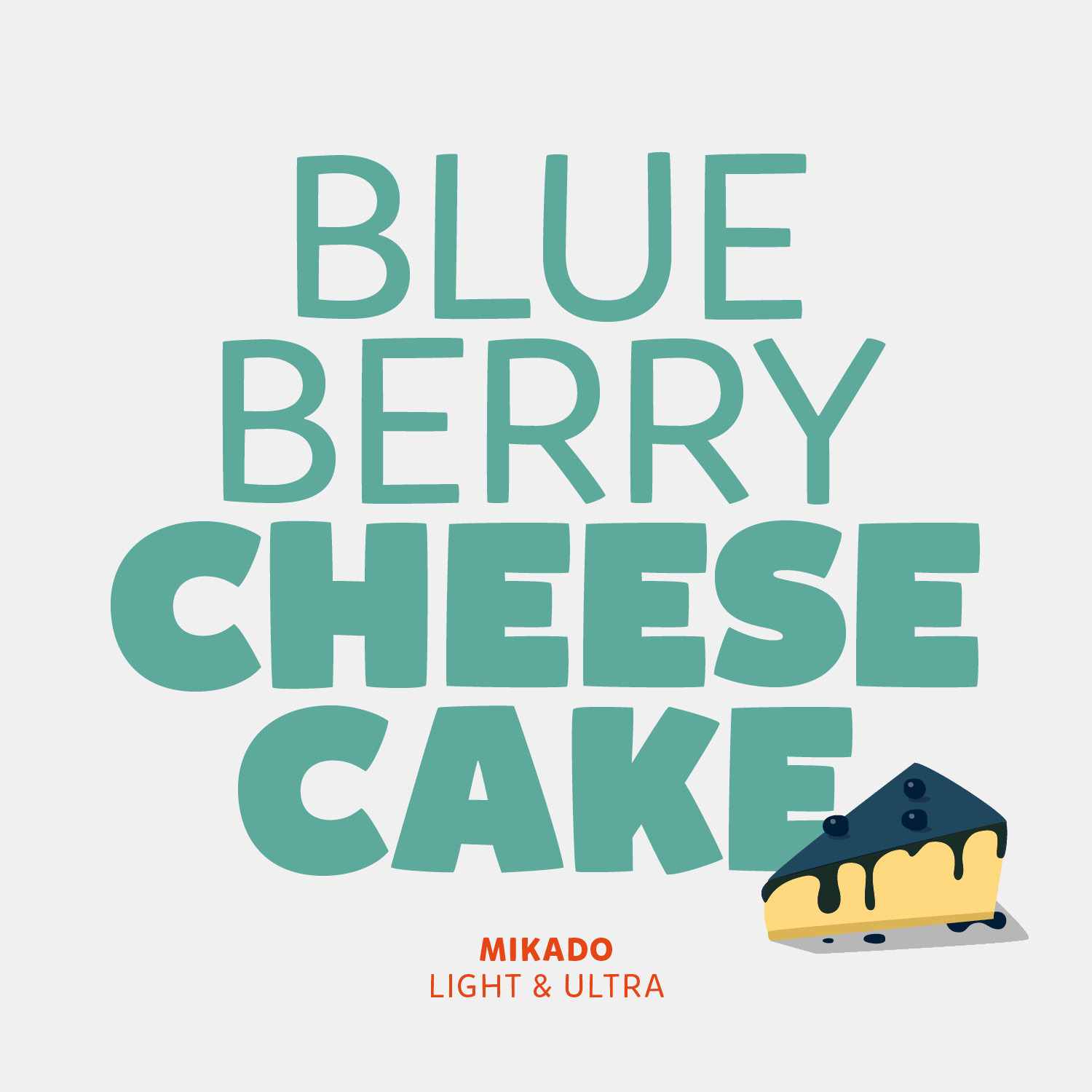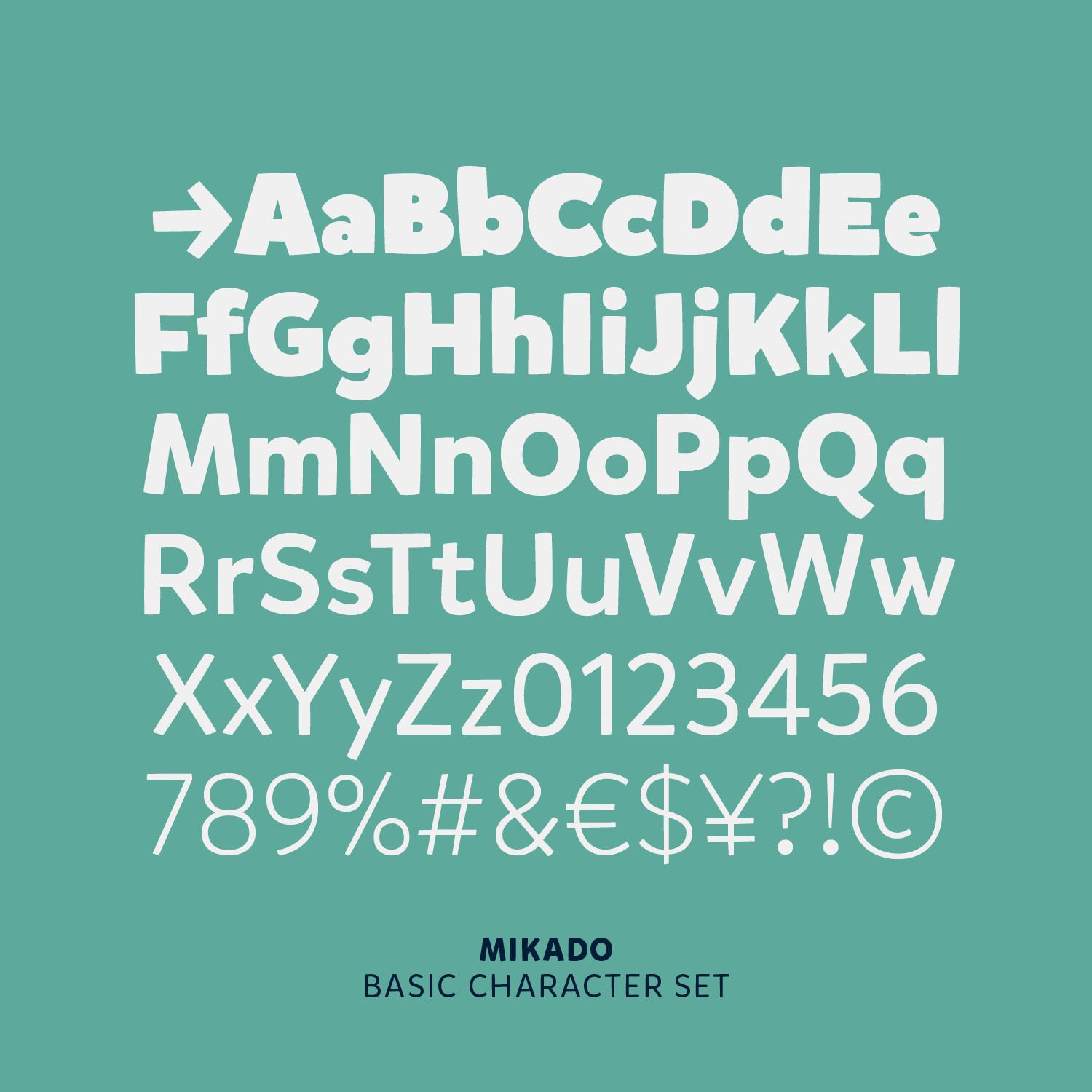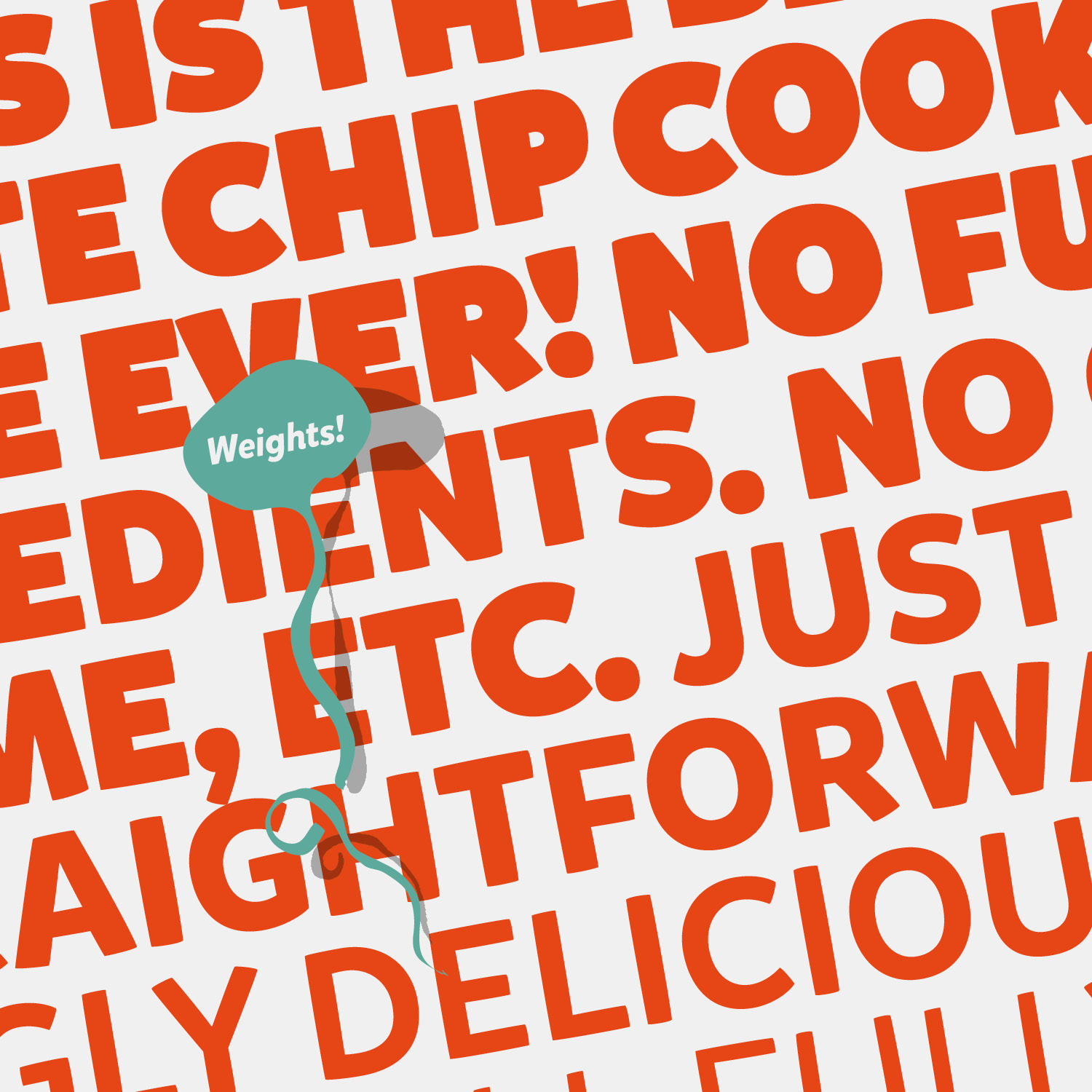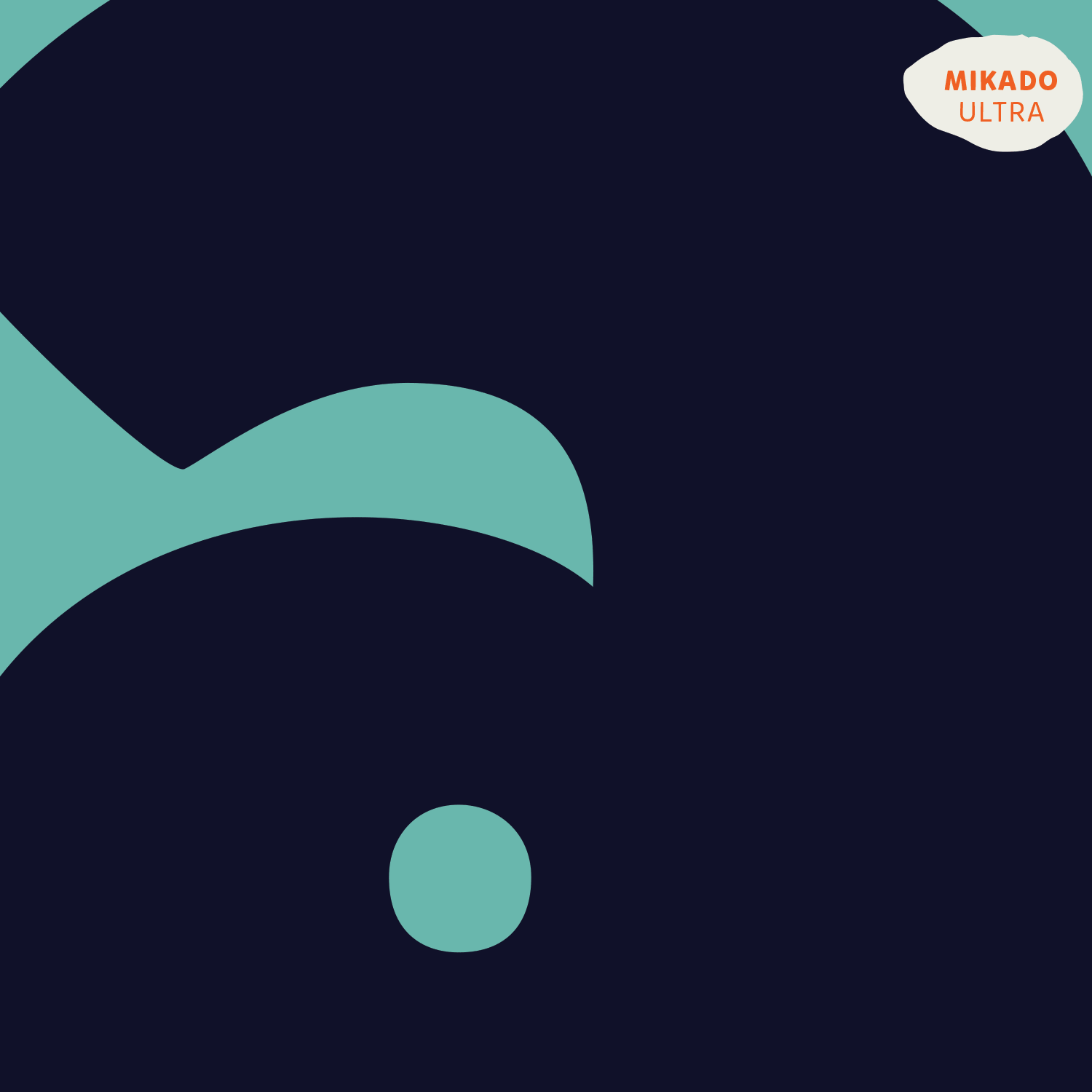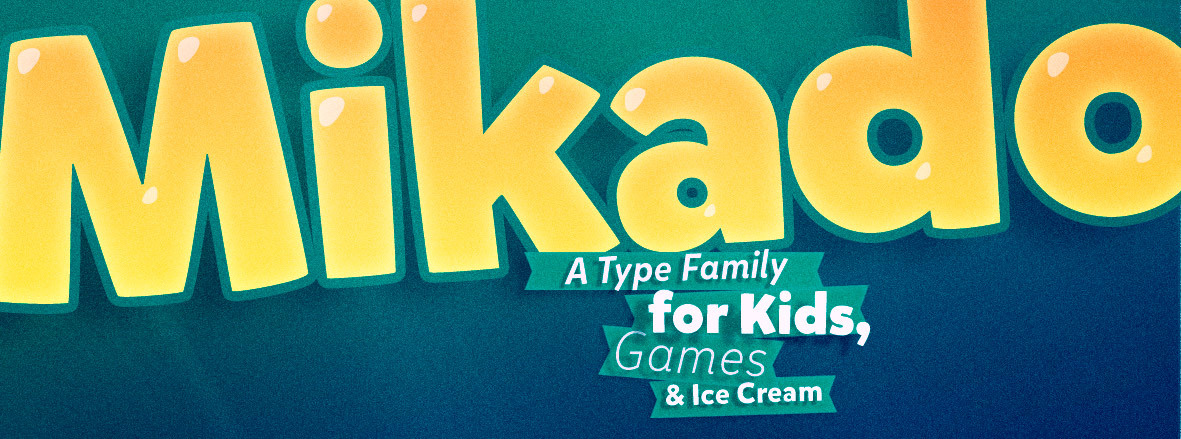
Mikado and Mikado Condensed is intended to be used everywhere where a pleasant feeling should be conveyed: Games, Food, Service or Advertising. Mikado has a positive, kind of “out-of-the-box-appearance” in big sizes, but because of its straight architecture the fonts are also very legible in smaller sizes and longer texts - in print or on screen.
Designing Mikado felt easy and fun – the letterforms should be innocent and easygoing on the one hand and prepared for typographic challenges on the other hand. A big character set, good spacing & kerning and screen optimised fonts make Mikado a good choice for professional usage between Games, toys and ice cream.
The thinner weights (Light to Medium) are designed to work even in long texts in small sizes. They should deliver the text ability, while the bolder the weights get more and more bouncy for headlines and big uses. As a special option the type family is also equipped with an “Ultra” weight. As fat as it can get, shouting with an extra loud voice.
A font of today’s needs has to include more than just the alphabet and some punctuation. Besides a big number of accented letters, making sure that the typeface has a good language support, a font should include several features for excellent typographic work joining forces with the layout applications of the time and of course the user. Here is a selection of what this font family has to offer under the hood.
If two letters have the nature to collide when used in combination a ligature is needed to solve this unwanted event. Ligatures are especially designed solutions for such letter combinations. This font contains a set of ligatures which are automatically substituted as soon as these letter combinations are typed in.
If fractions are needed anywhere an OpenType code makes sure that if you type any numbers combined with a slash between a fraction will automatically be substituted.
Besides the standard letters a font sometimes contains several versions of a letter called alternates. You can exchange the alternate with the standard letter by selecting it through the Opentype feature panel and every letter of the stylistic set will be exchanged. Often this results in a totally different optical appearance of the typeface.
A subscript is a character that is set slightly below the normal line of type. They are used in formulas, mathematical expressions, and specifications of chemical compounds and isotopes, but can have many other uses as well. These characters are not simply ordinary characters reduced in size – to keep them visually consistent with the rest of the font, they are slightly heavier than a reduced-size character would be.